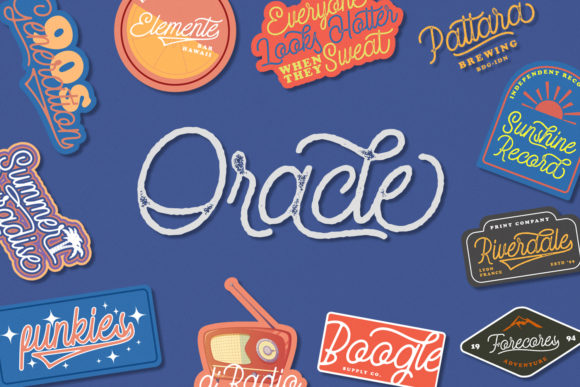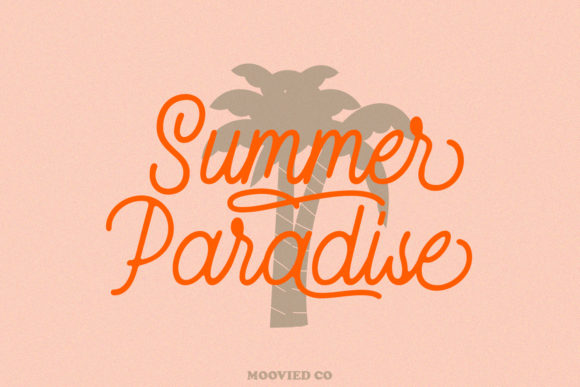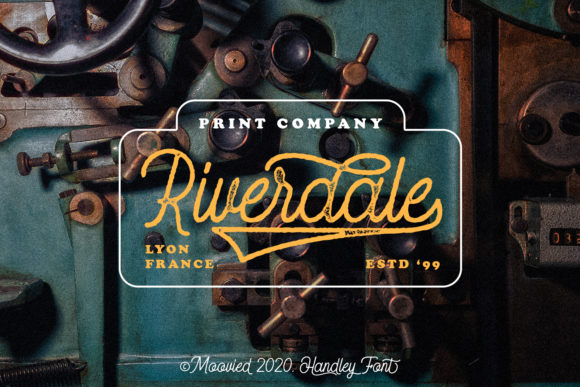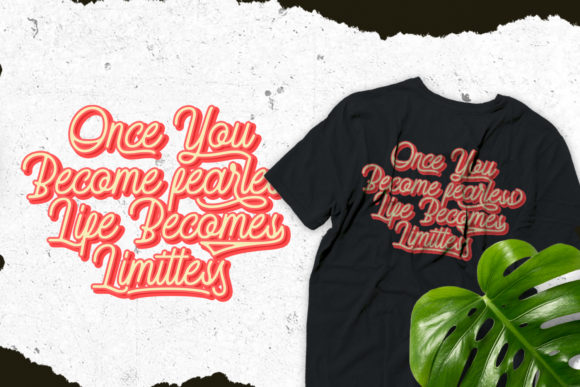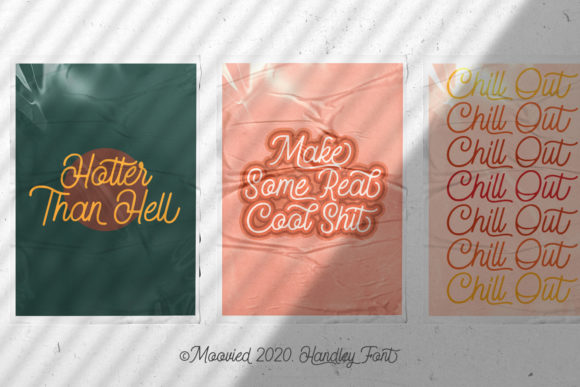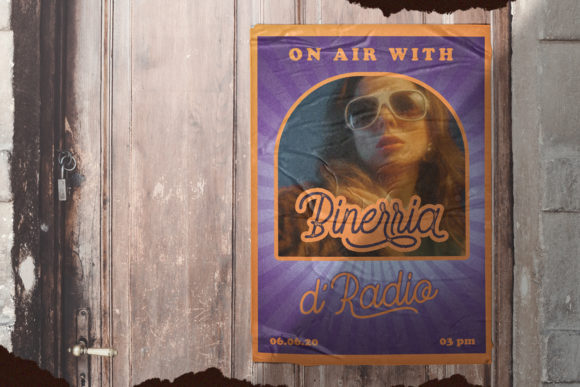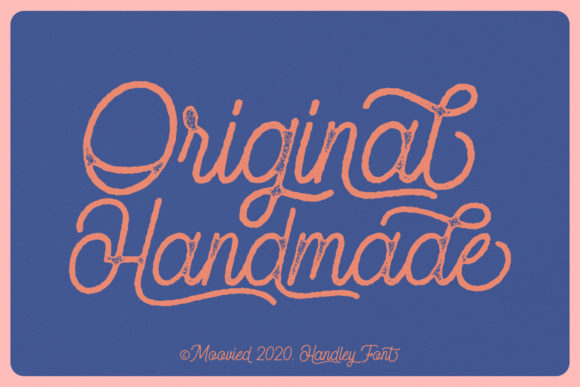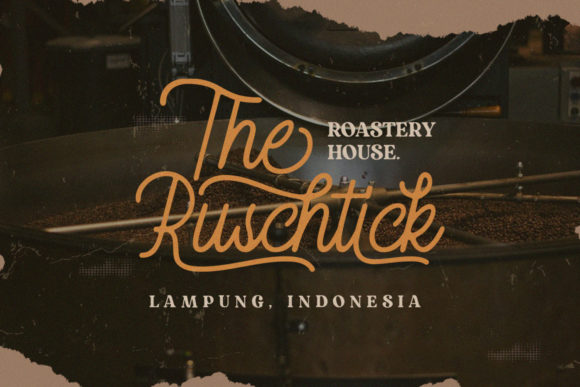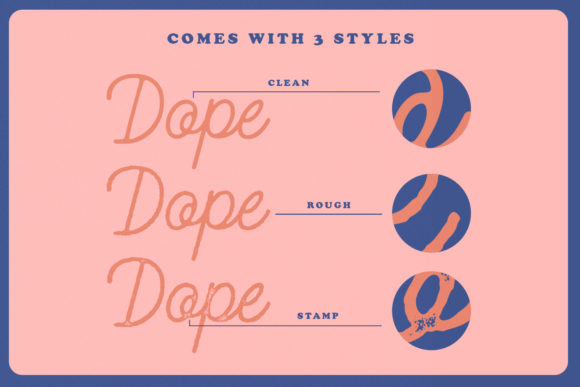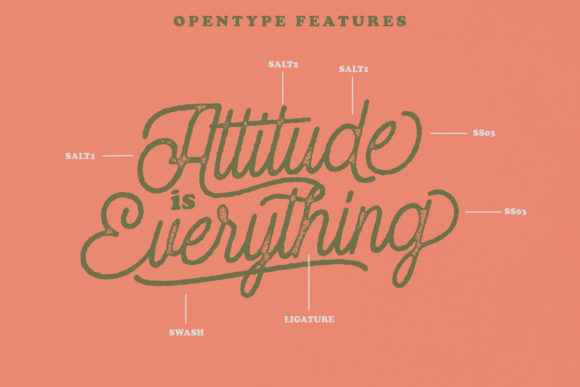
Handley Font
About Handley Font
Handley is a magical handwritten font carefully created with a touch of elegance. This is a beautiful combination of timeless elegance and authentic calligraphy.
Whether you’re looking for fonts for Instagram or calligraphy scripts for DIY projects, Handley will turn any creative idea into a true piece of art!